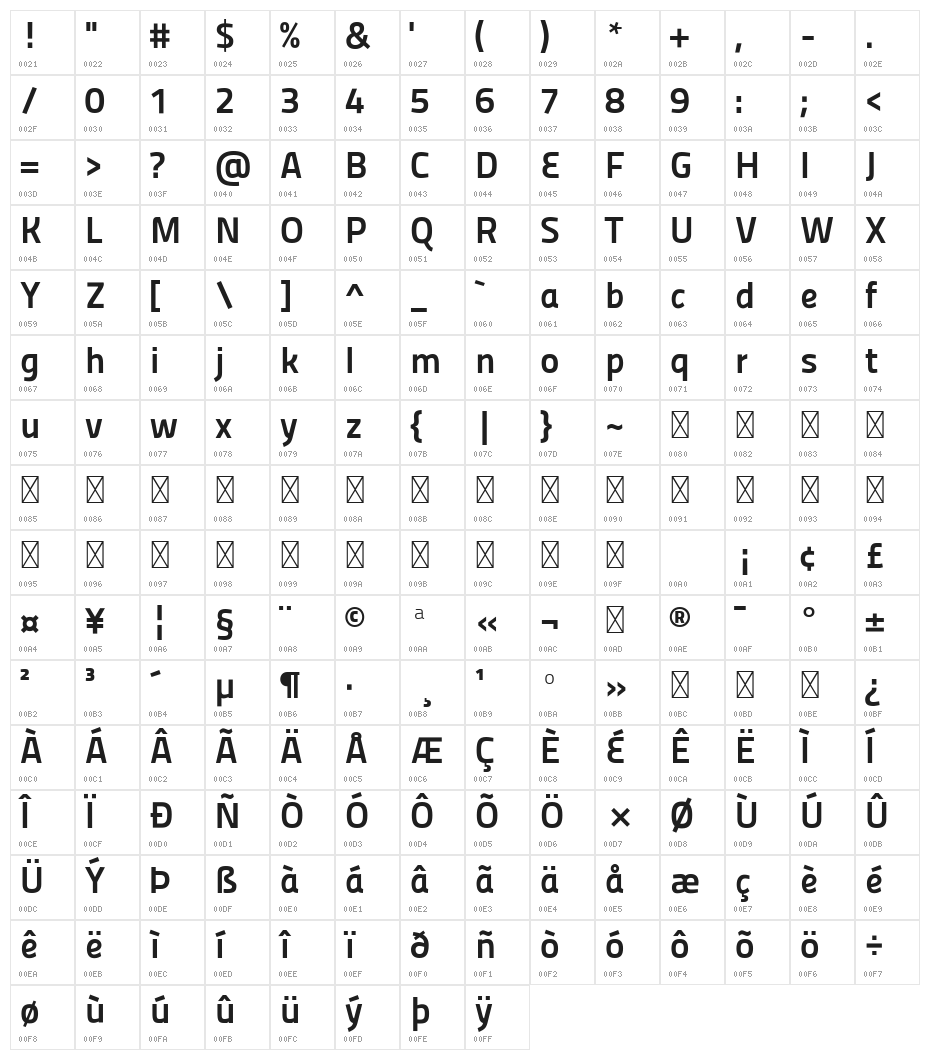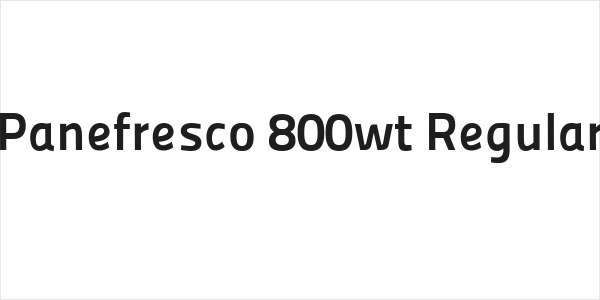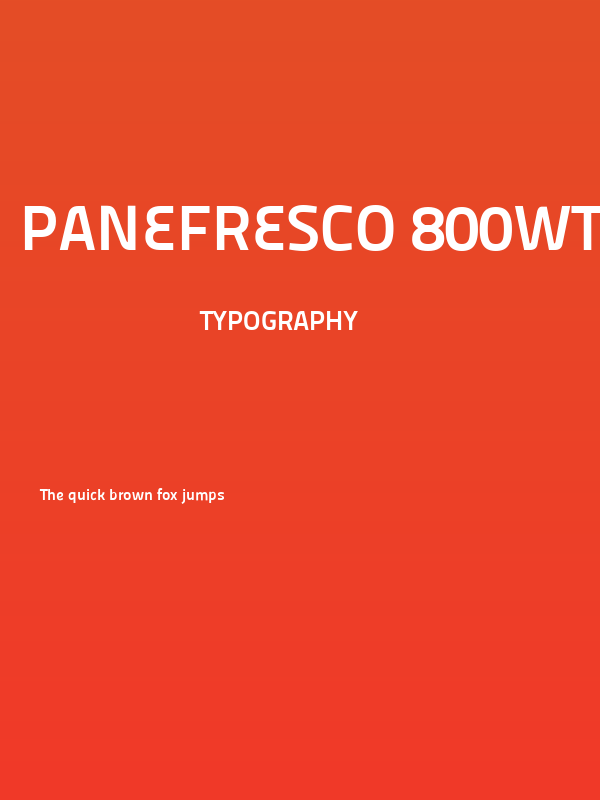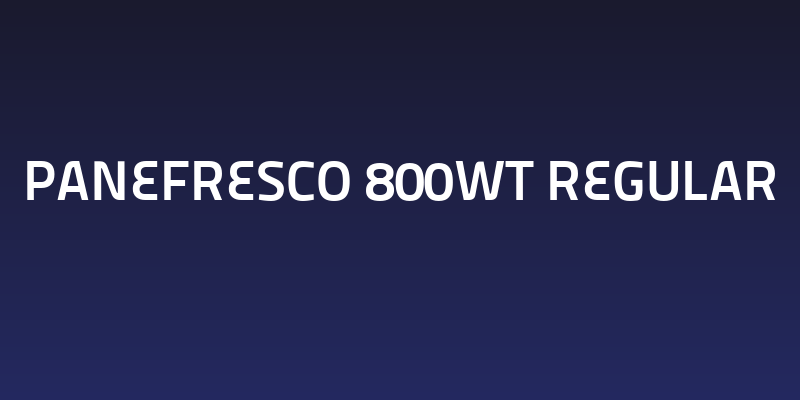
Panefresco 800wt Regular Font
Panefresco 800wt Regular Description
This font showcases a modern and clean sans-serif style with a strong presence. The characters are bold and well-defined, featuring a uniform stroke width that contributes to its contemporary appearance. The uppercase letters are slightly taller than average, providing a commanding look, while the lowercase letters maintain a consistent height, ensuring readability. The numerals are robust and align well with the overall design, making them suitable for various applications. Special characters are distinct and harmonize with the rest of the typeface, enhancing its versatility.
| Use Case | Headlines, Logos, Digital interfaces |
| Proposed Projects | Ideal for branding, advertising, digital interfaces, and editorial design. |